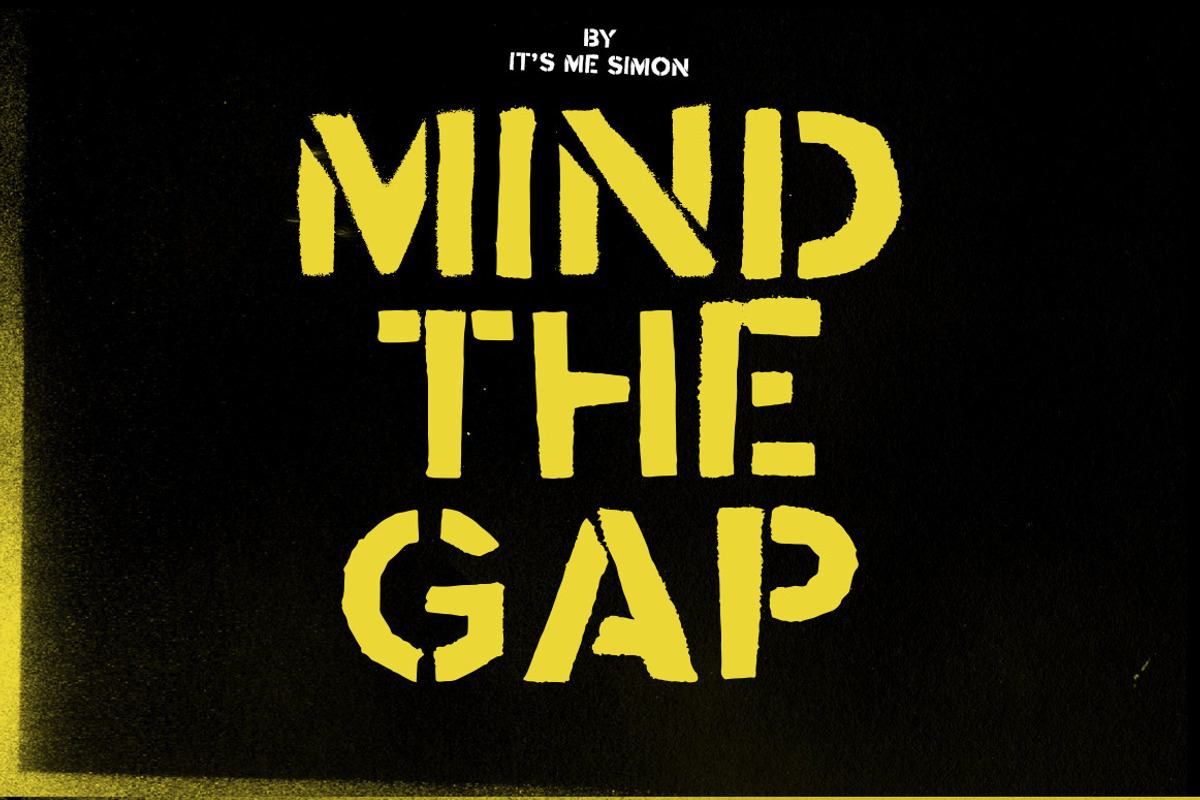
Mind The Gap – Stencil Display Font Free Download is a bold and industrial-style typeface with a modern twist. Inspired by traditional stencil lettering, this font features clean cuts, geometric shapes, and a strong structure—perfect for posters, signage, streetwear branding, military-inspired graphics, and editorial layouts that need a commanding visual presence.
The gap detailing in Mind The Gap – Stencil Display Font Free Download adds an urban edge, giving your designs a raw, functional aesthetic while still feeling sleek and contemporary. Whether used in bold headlines or logo designs, it delivers clarity, character, and style.